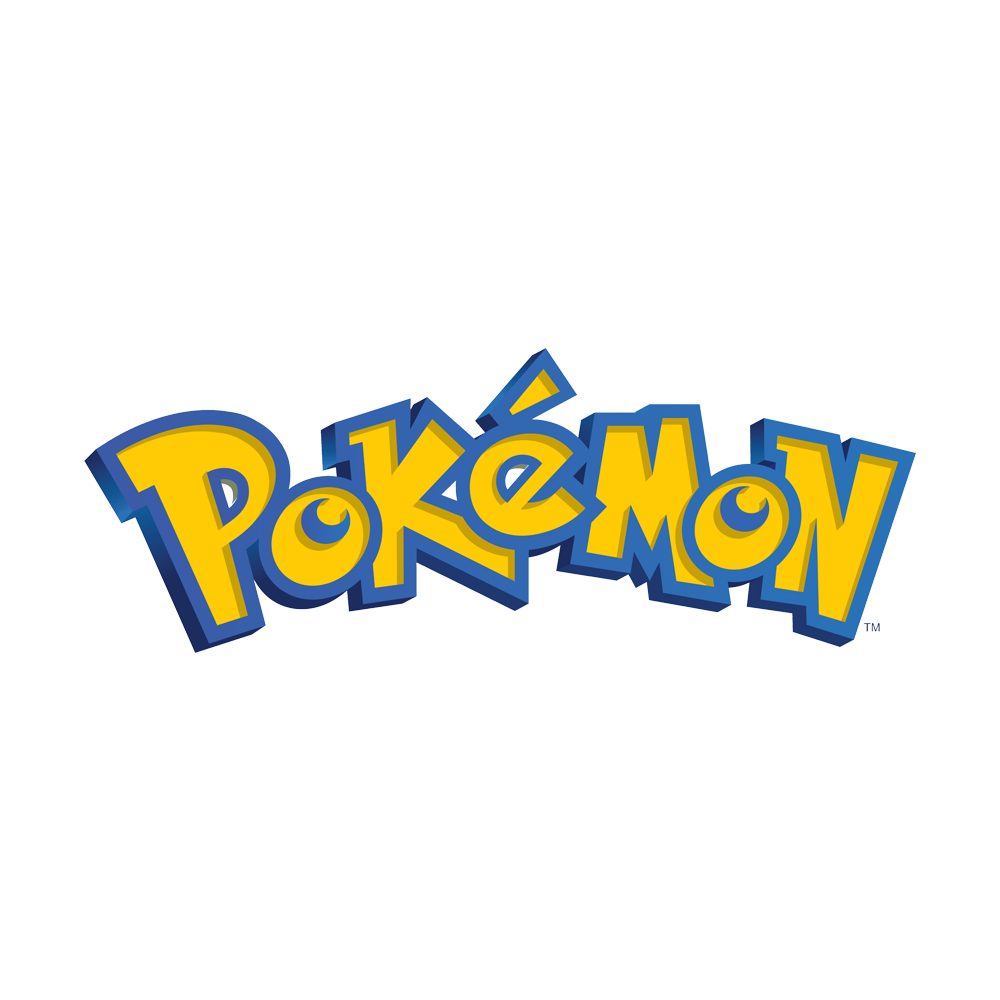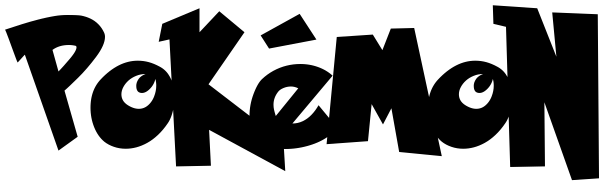
Pokemon Font
Fonts in UsePokémon is a media franchise created by Satoshi Tajiri and Game Freak. It consists of video games, trading card games, and other merchandise, all featuring a cast of creatures called "Pokemon," which humans, known as Pokemon Trainers, catch and train to battle each other for sport.
The Pokemon logo uses a custom typeface but FontGet has created a fantastic replica called Pokemon Font, available 100% free. Another fan-made replica is also available, called Pokémon Solid by IPBP (Demo Licence).